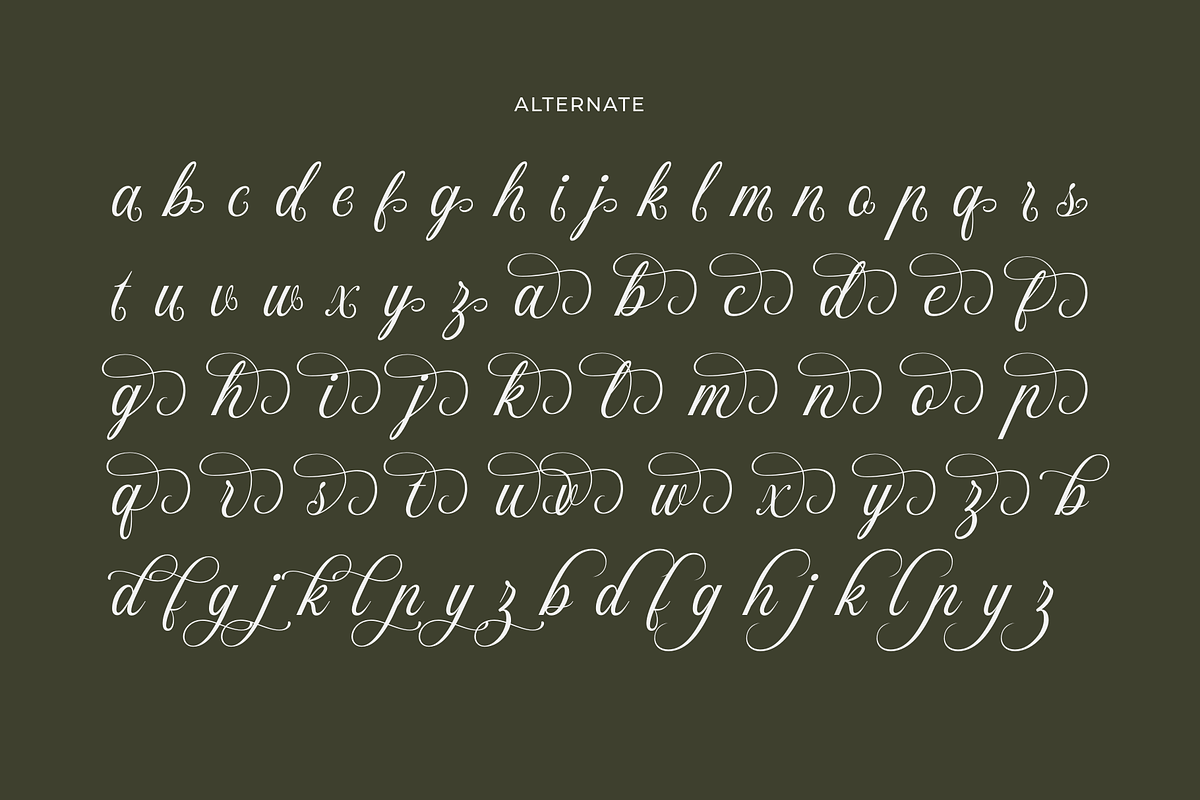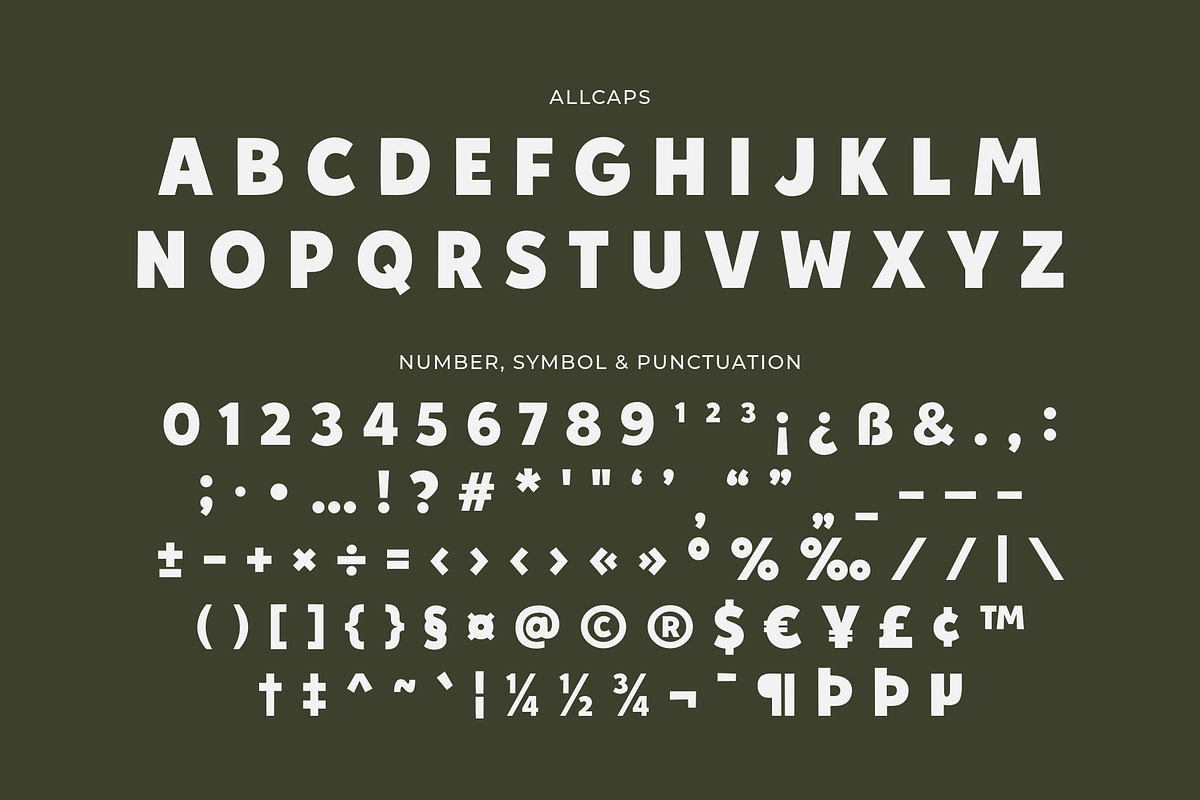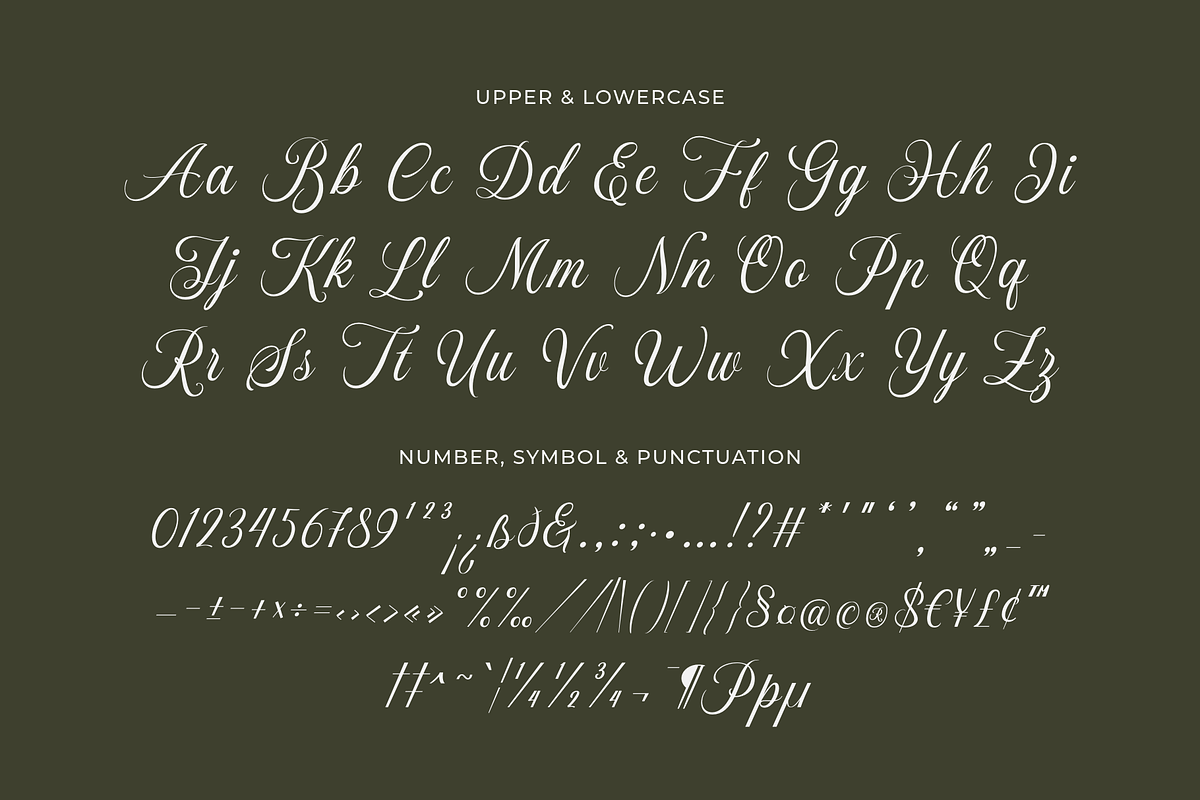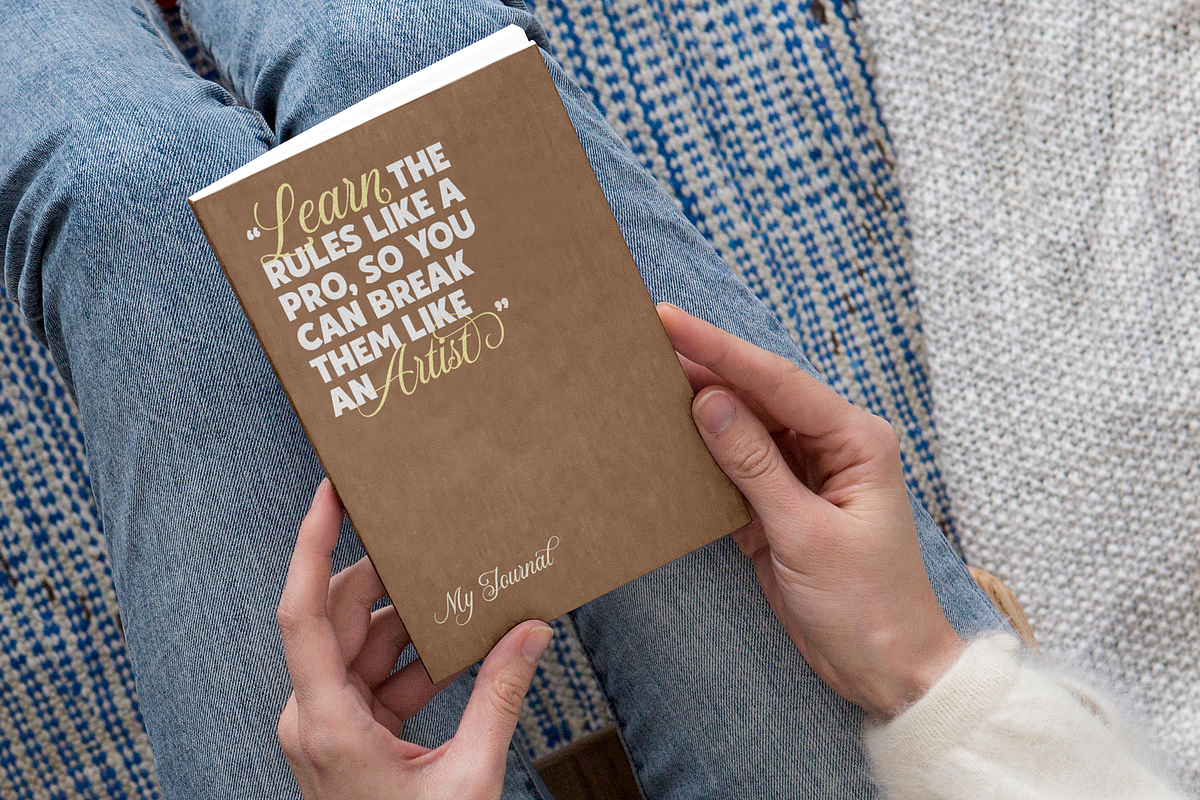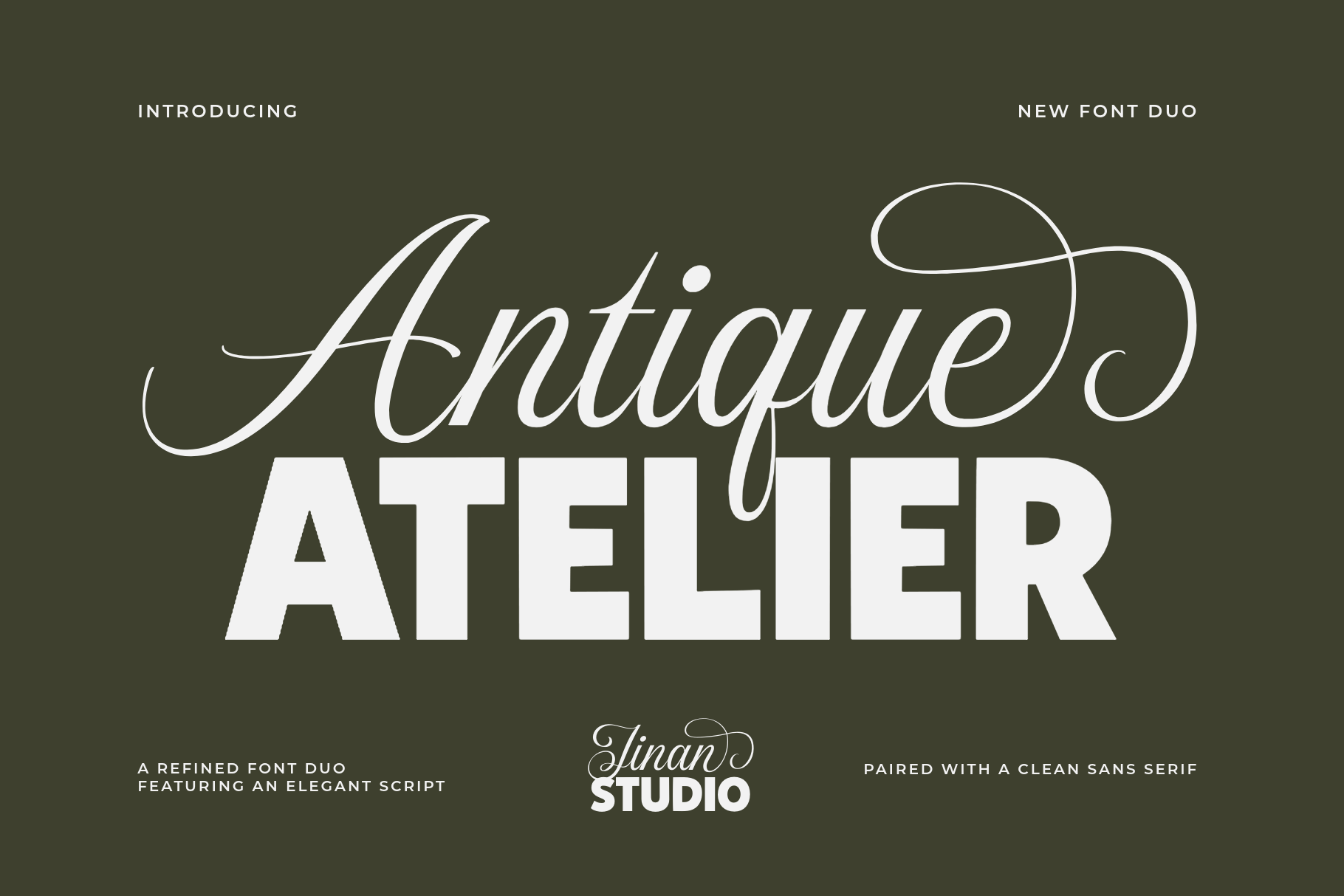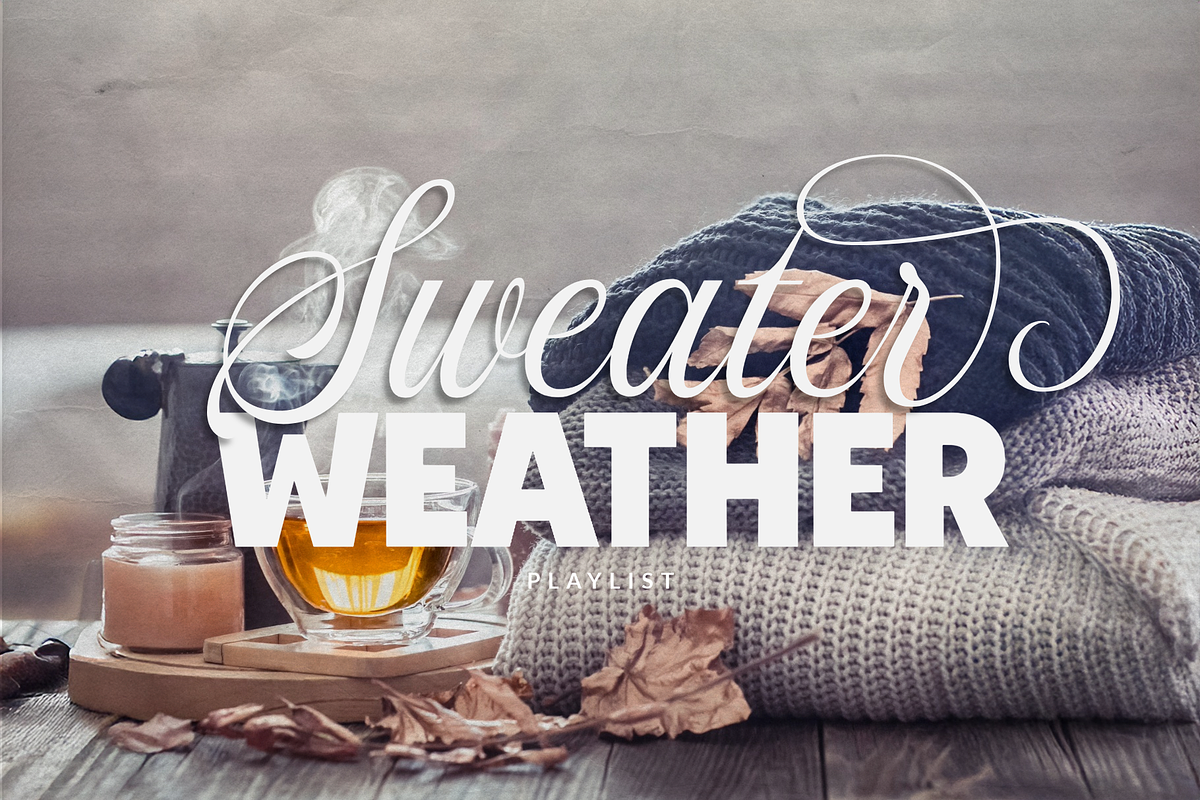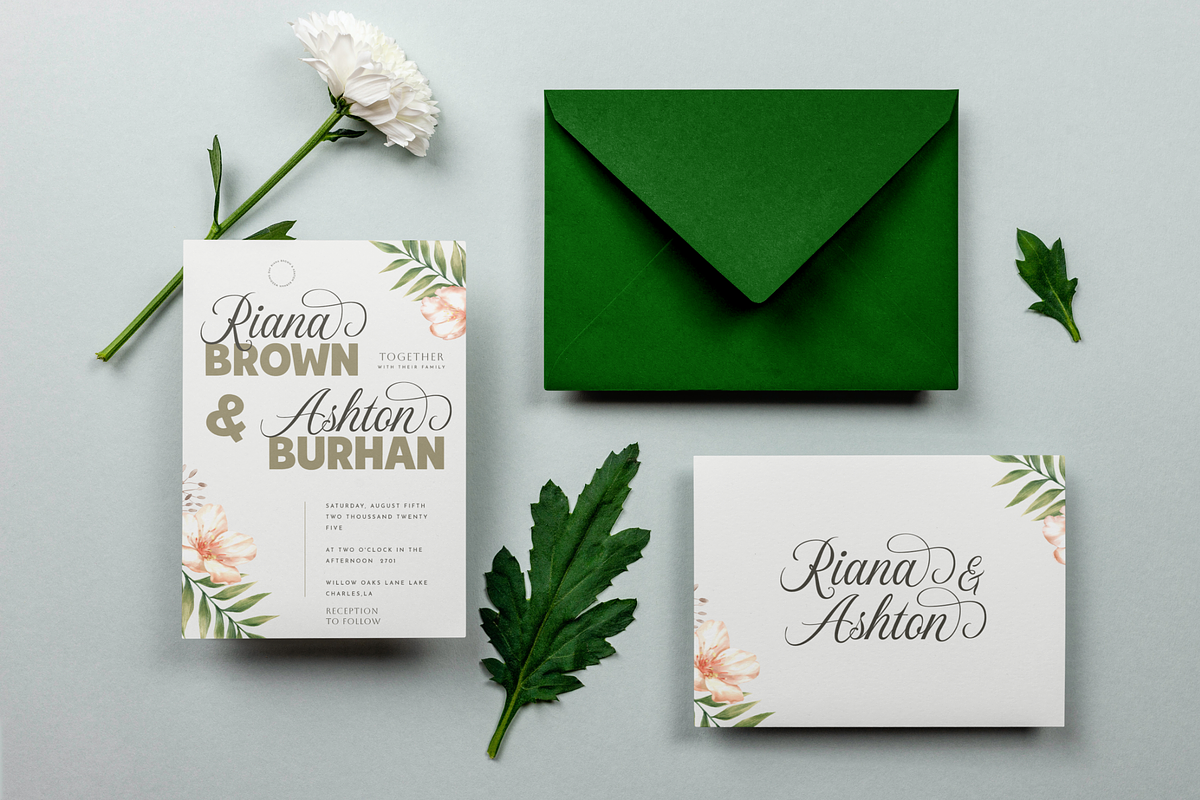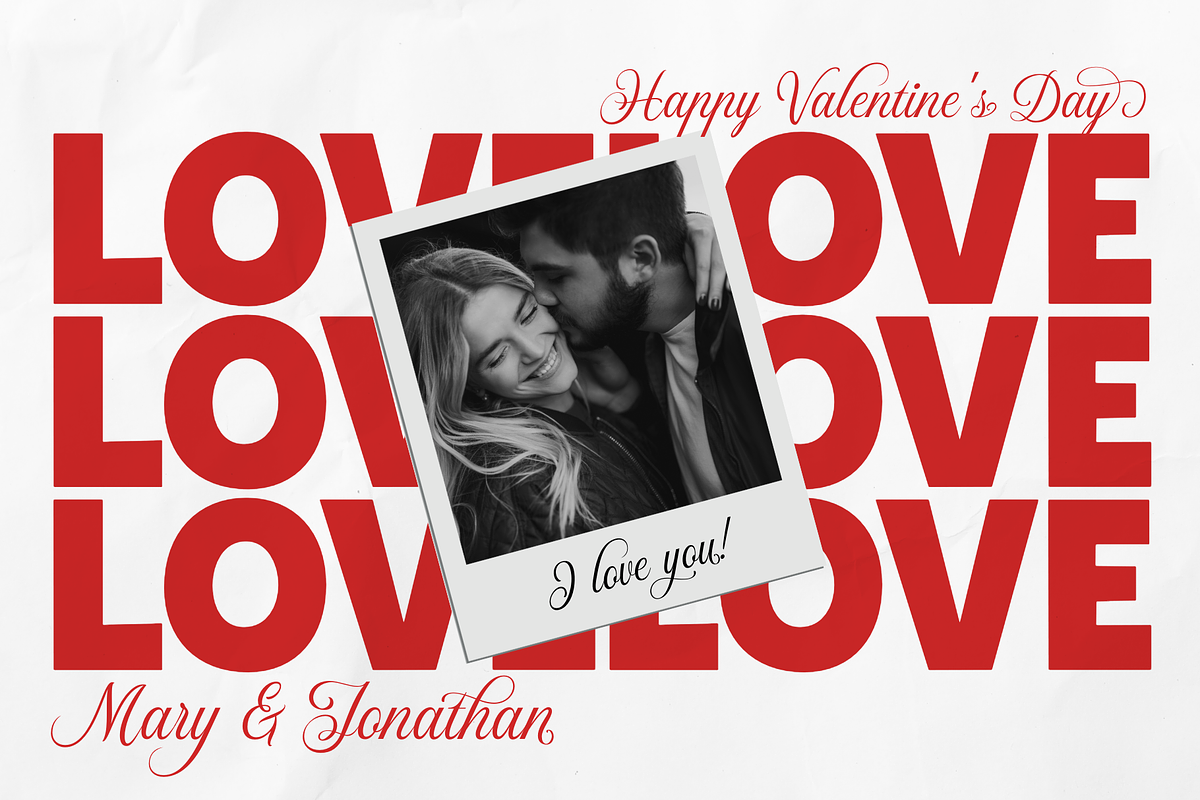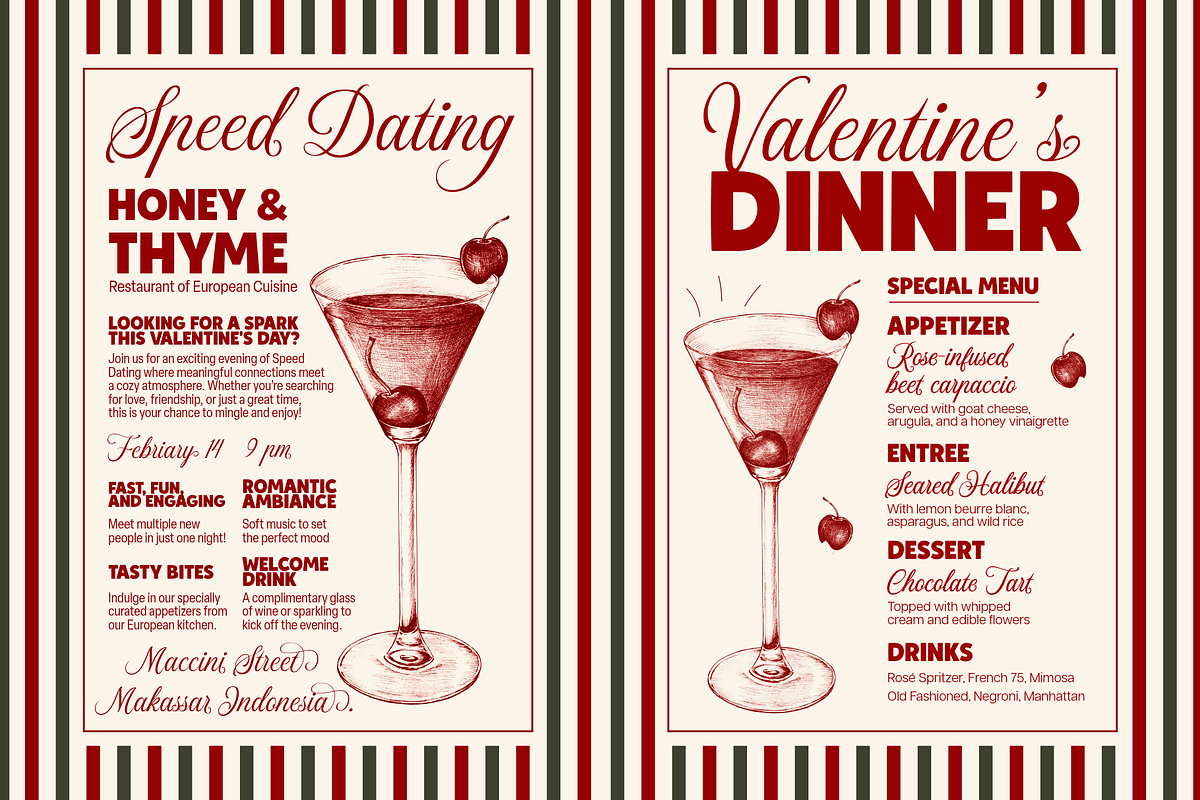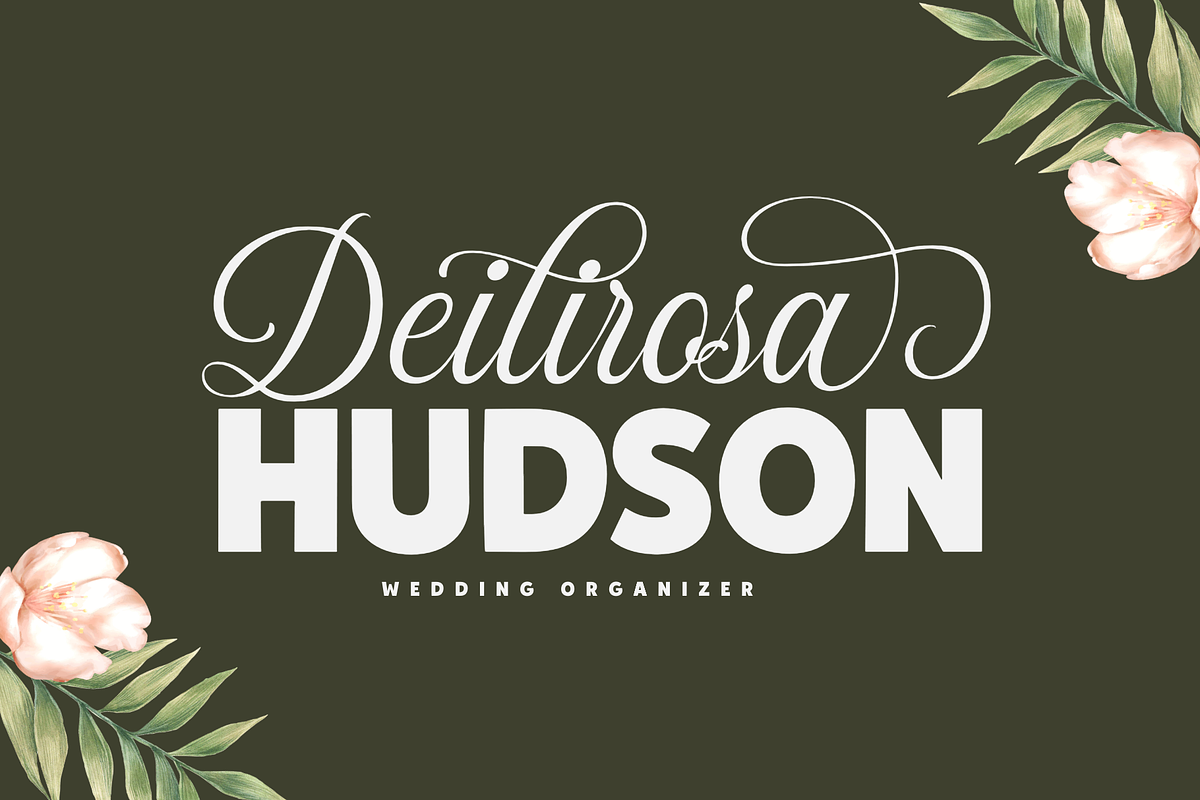
Antique Atelier - A Font Duo
Antique Atelier is an elegant font duo combining a graceful script with a bold, clean sans serif. Designed for timeless and professional layouts, this pairing creates beautiful contrast and balance.
Perfect for logos, branding, packaging, invitations, editorials, and premium design projects, Antique Atelier brings a classic yet modern feel to any creative work.
- A set of uppercase and lowercase glyphs (allcaps sans version)
- Number, symbol, and punctuation
- Alternates (script version)